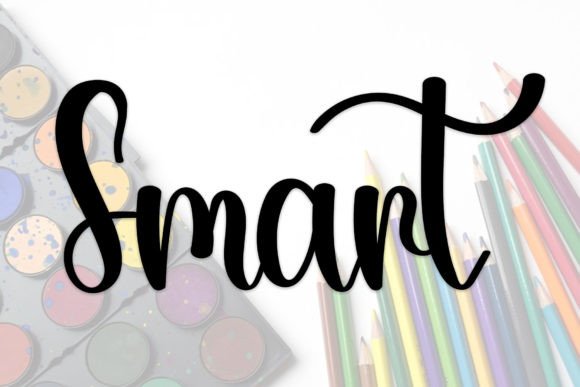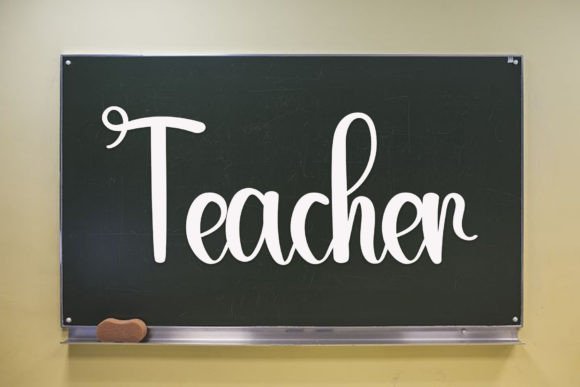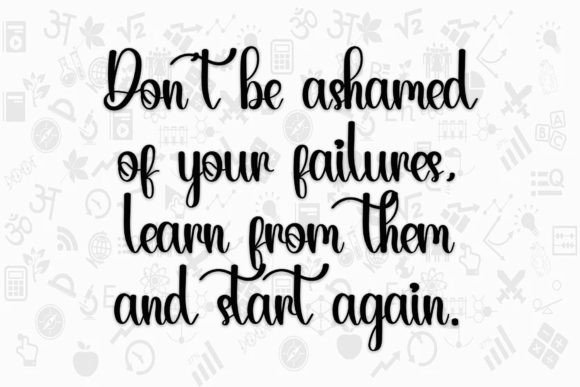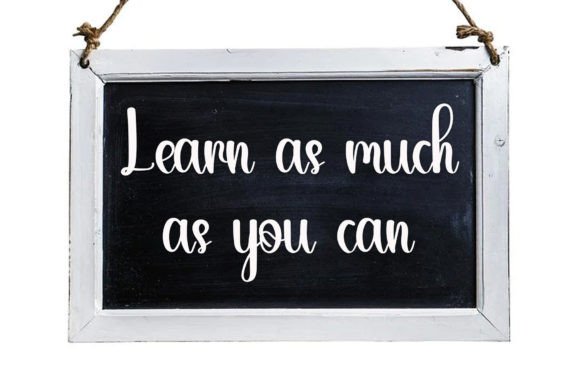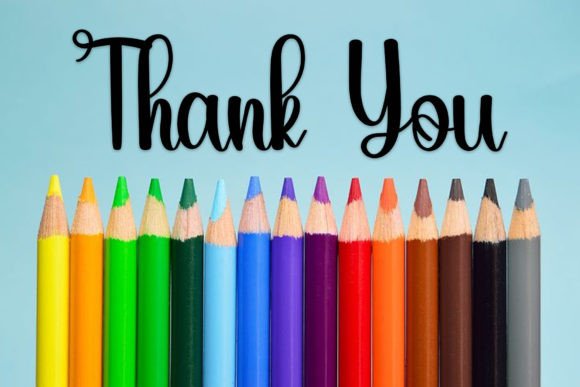
Introducing Education Font: The Elegant Handwritten Font for Your Favorite Projects
Are you a designer, crafty person, or someone who loves creating visually appealing content? Look no further! We’re excited to introduce Education Font, a beautiful handwritten font that adds an elegant touch to any project. With its distinct and timeless style, Education Font is sure to capture your heart and inspire your creativity.
What Makes Education Font Special?
Education Font stands out from other fonts due to its unique and sophisticated design. The elegant handwriting style gives it a personal and human touch, making it perfect for a wide range of applications, from educational materials to digital products, and even craft projects. The font’s classic look ensures that it will remain stylish and relevant for years to come.
Key Features of Education Font
- Handwritten Elegance: Education Font boasts a beautiful, handwritten style with an elegant touch, making it perfect for designs that require a personal and sophisticated look.
- Distinct and Timeless Style: The font’s unique design ensures that it will stand out from the crowd and remain stylish for years to come.
- Versatility: Education Font can be used for a wide range of projects, from educational materials and digital products to craft projects and more.
- Easy to Read: The font’s clear and legible design ensures that your text will be easy to read, making it perfect for body text and headings.
Education Font is an excellent choice for designers and crafters who want to add a personal touch to their projects. Whether you’re creating educational materials, digital products, or handmade crafts, this font will help you create visually appealing designs that capture attention and inspire your audience.
Use Cases for Education Font
- Educational Materials: Use Education Font to create engaging and interactive educational materials, such as worksheets, activity sheets, and educational posters.
- Digital Products: Add a personal touch to your digital products, such as ebooks, printables, and planners, with Education Font.
- Craft Projects: Use Education Font to create beautiful and unique craft projects, such as handmade cards, gift tags, and scrapbooking pages.
- Branding and Marketing: Use Education Font to create a cohesive brand identity and add a personal touch to your marketing materials.
Tips for Using Education Font
- Pair with Other Fonts: Experiment with pairing Education Font with other fonts to create a unique and visually appealing design.
- Use for Headings and Body Text: Use Education Font for both headings and body text to create a cohesive and elegant design.
- Experiment with Colors: Try out different colors and color combinations to add depth and interest to your design.
Education Font is a beautiful and elegant handwritten font that’s perfect for designers, crafters, and anyone who wants to add a personal touch to their projects. With its distinct and timeless style, Education Font is sure to inspire your creativity and help you create spectacular designs. So why wait? Fall in love with Education Font and take your designs to the next level!